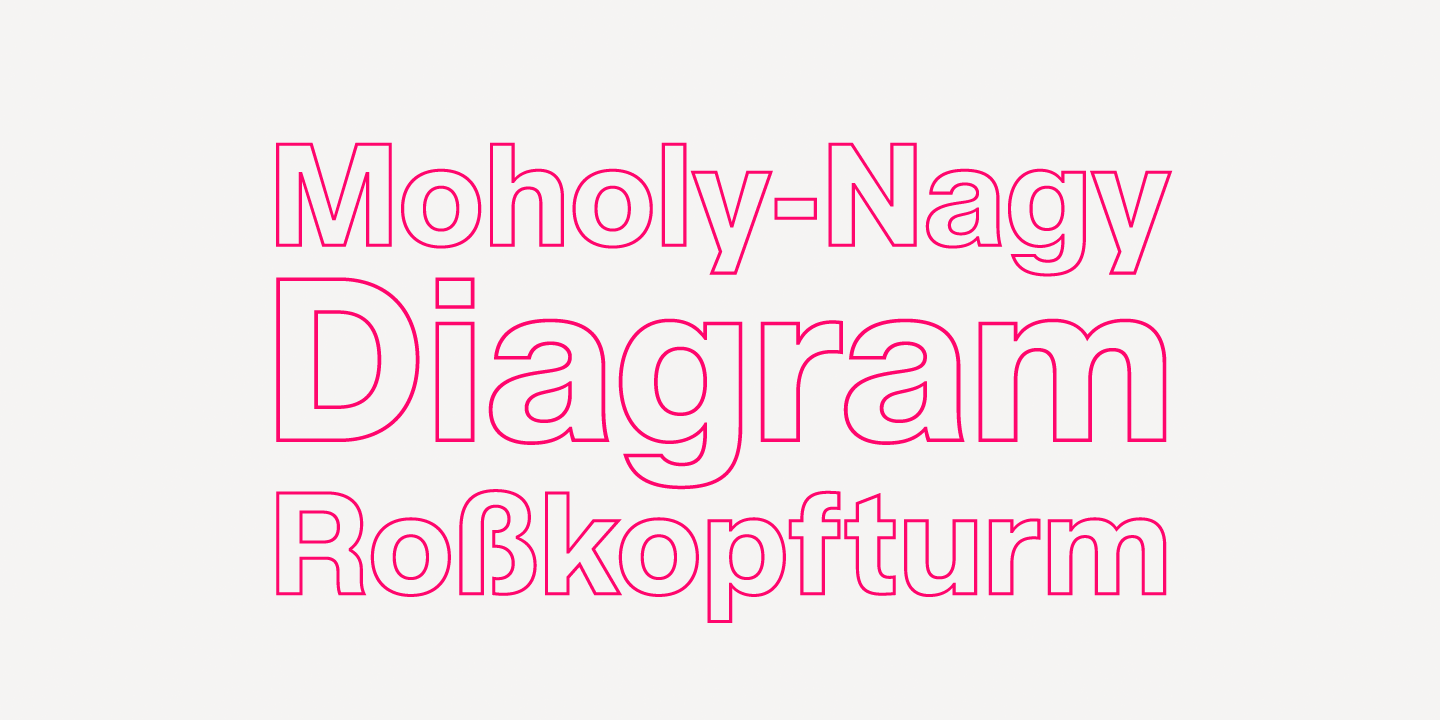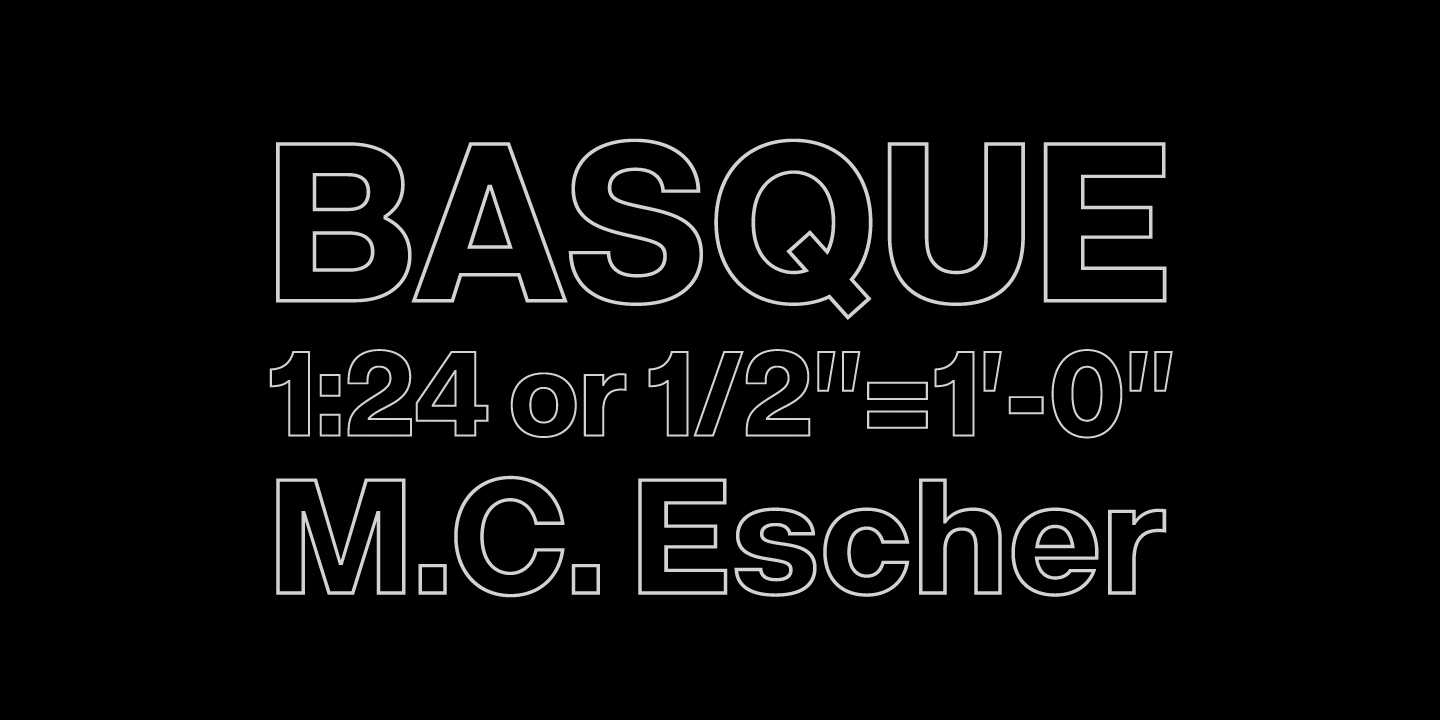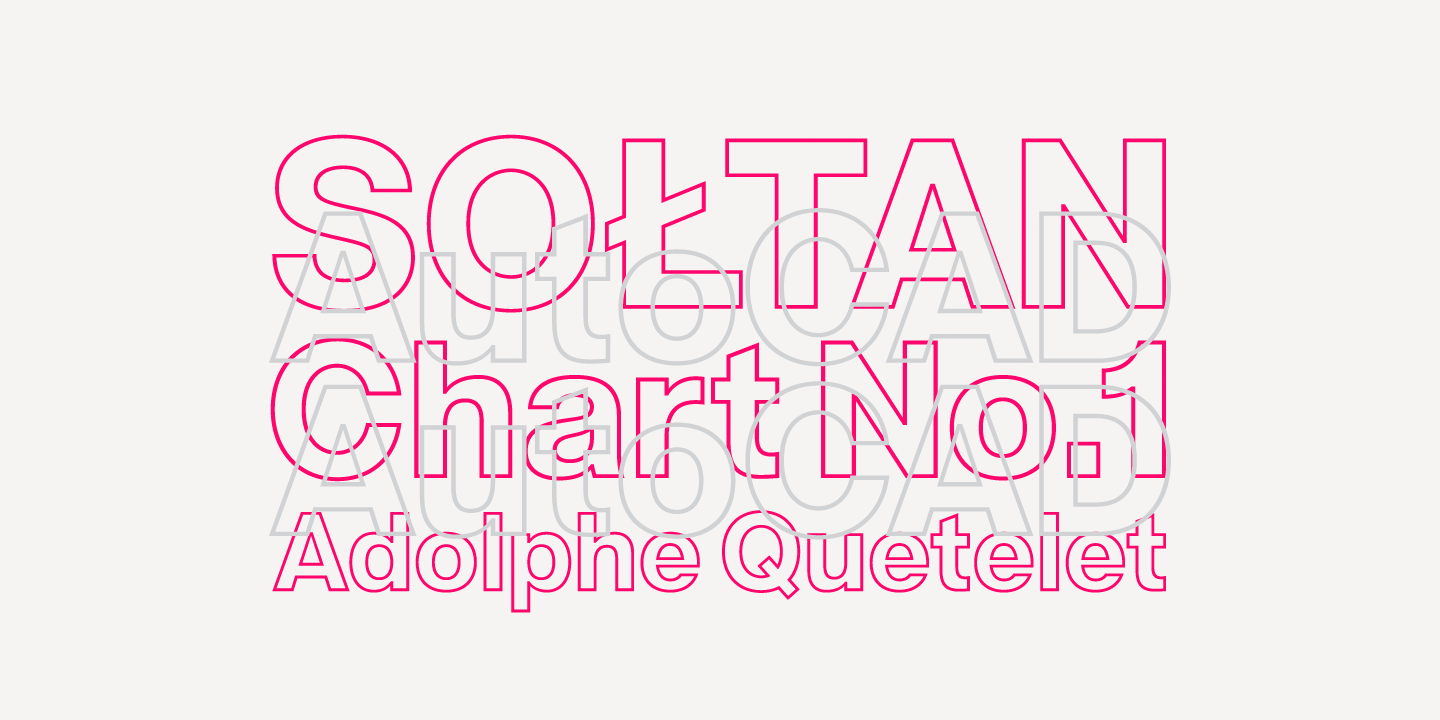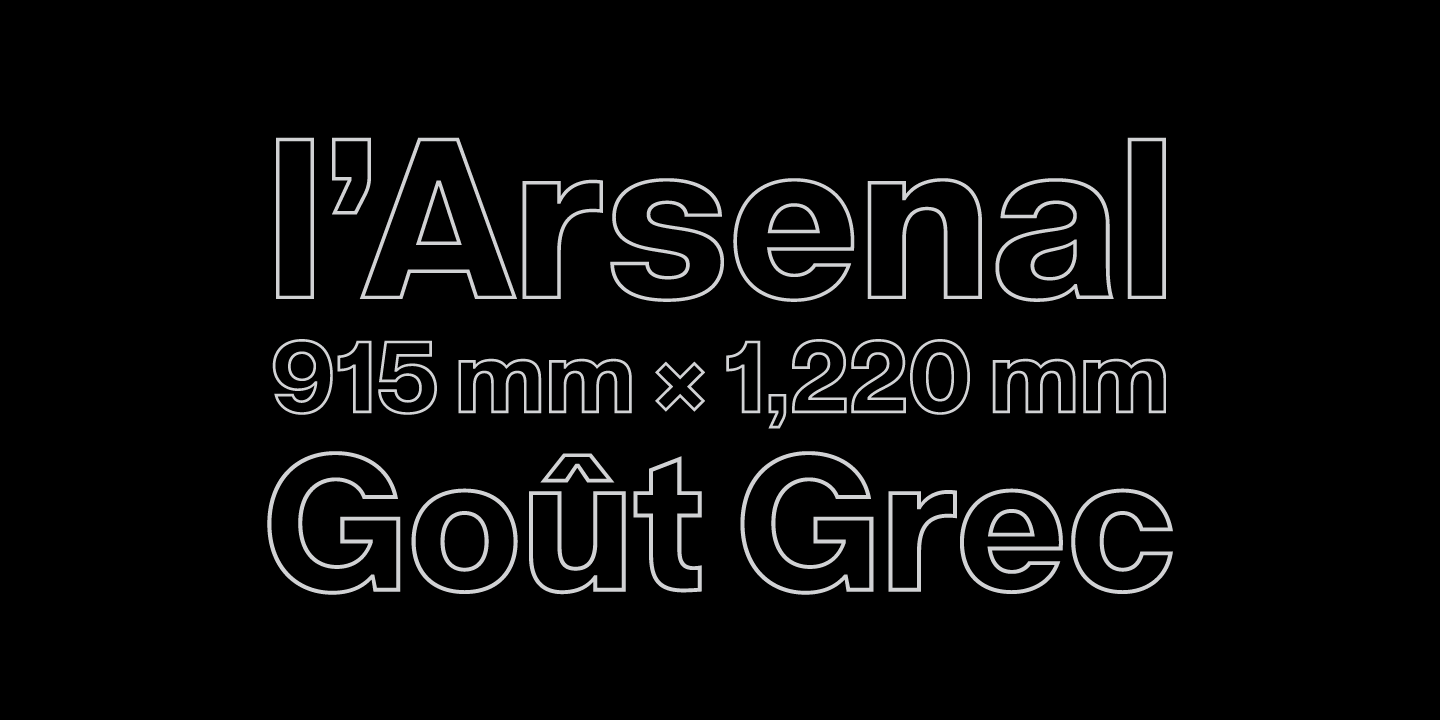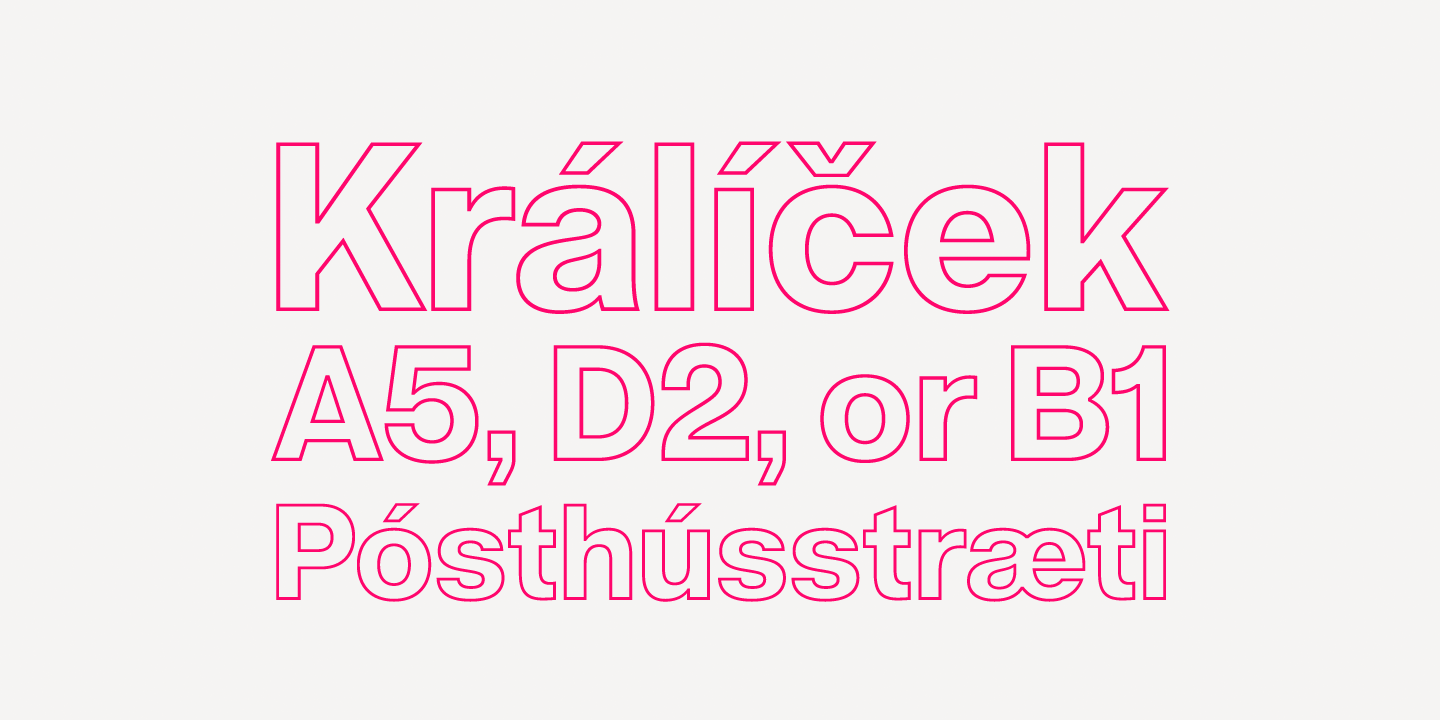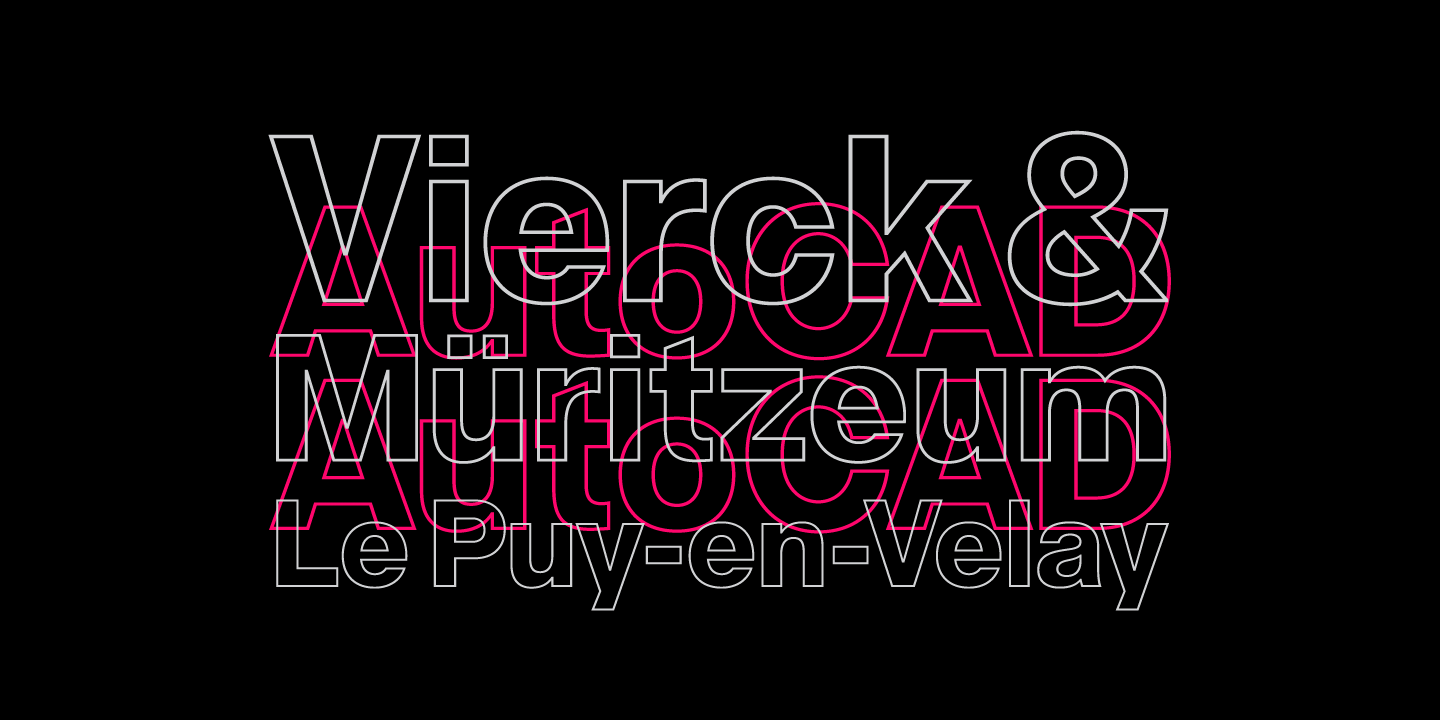
Acronym Outline Regular
Font Style by AE Type
Acronym Outline is a unique display variant that was produced manually, utlilizing Acronym’s assertive Extrabold weight as its foundation. It adheres to the same level of detail and refinement realized in Acronym, employing a relatively monoline stroke that has been subtley tapered, clipped, and altered to accomodate the conversion.
The three available weights (thin, light, regular) effectively act as grades, considering the letter width and spacing remains constant throughout each separate style. Designed to accomodate a range of display sizes, these ‘grades’ can be interchanged without causing critical shifts in word or line spacing.